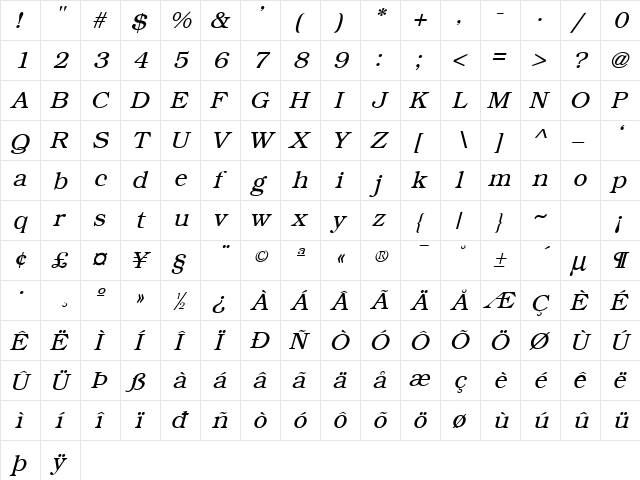
Oakland Italic
Design Context for Oakland Typeface
Oakland is a composed and adaptable typeface that performs quietly and consistently across a wide range of design contexts. The dynamic lean of this cut emphasises speed and emphasis in any layout.
Pro Tip: Try Oakland for annotation and caption copy alongside an upright companion — the contrast in angle creates a dynamic but ordered typographic system.